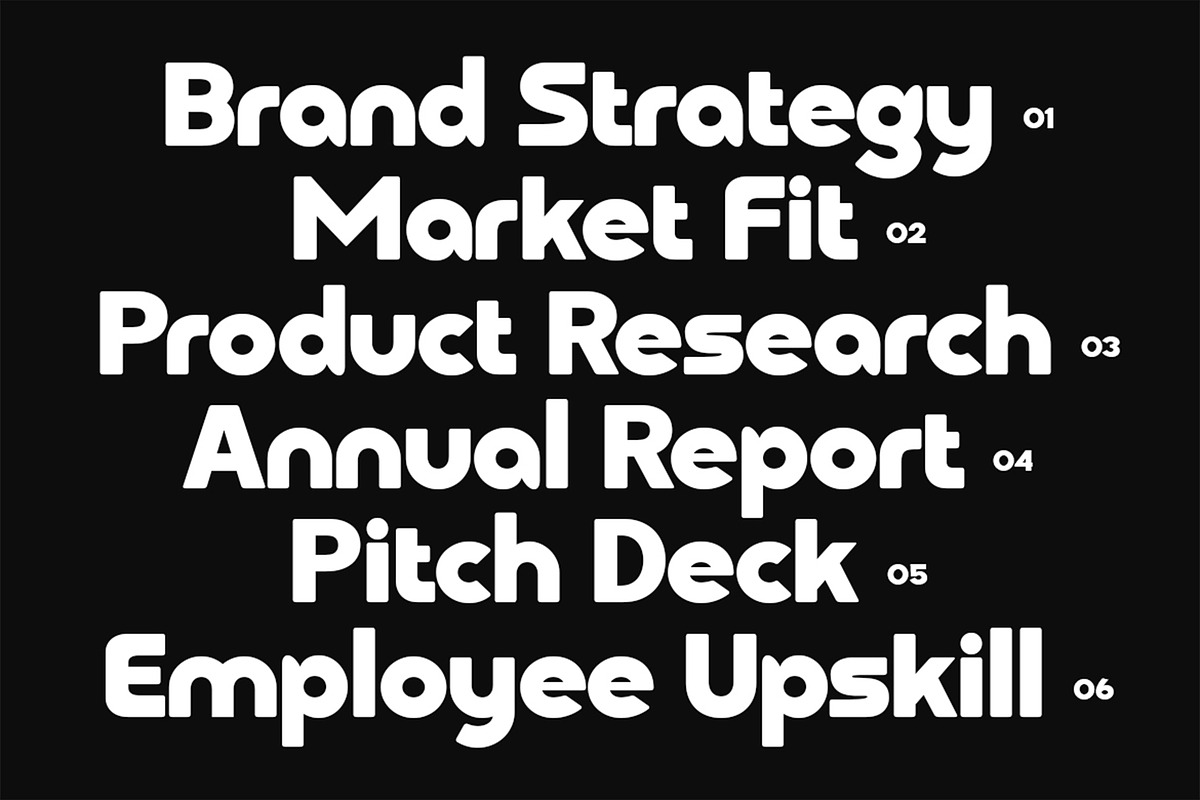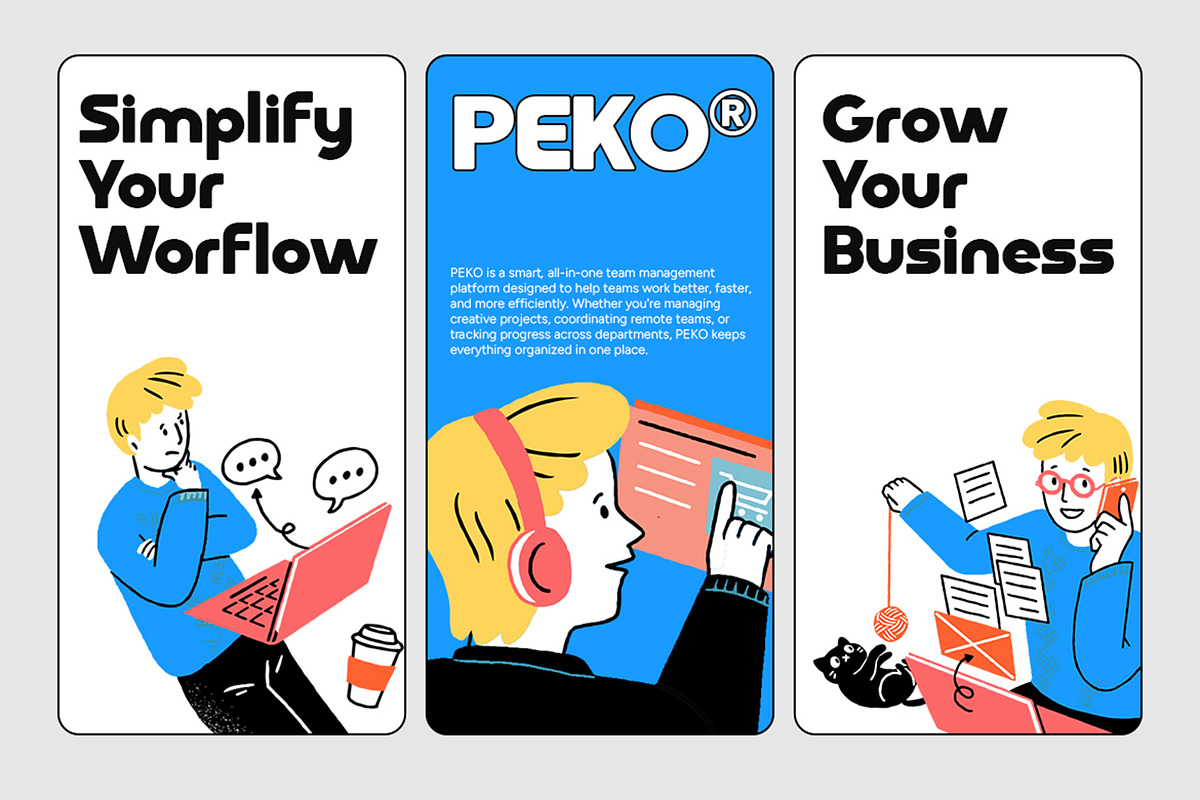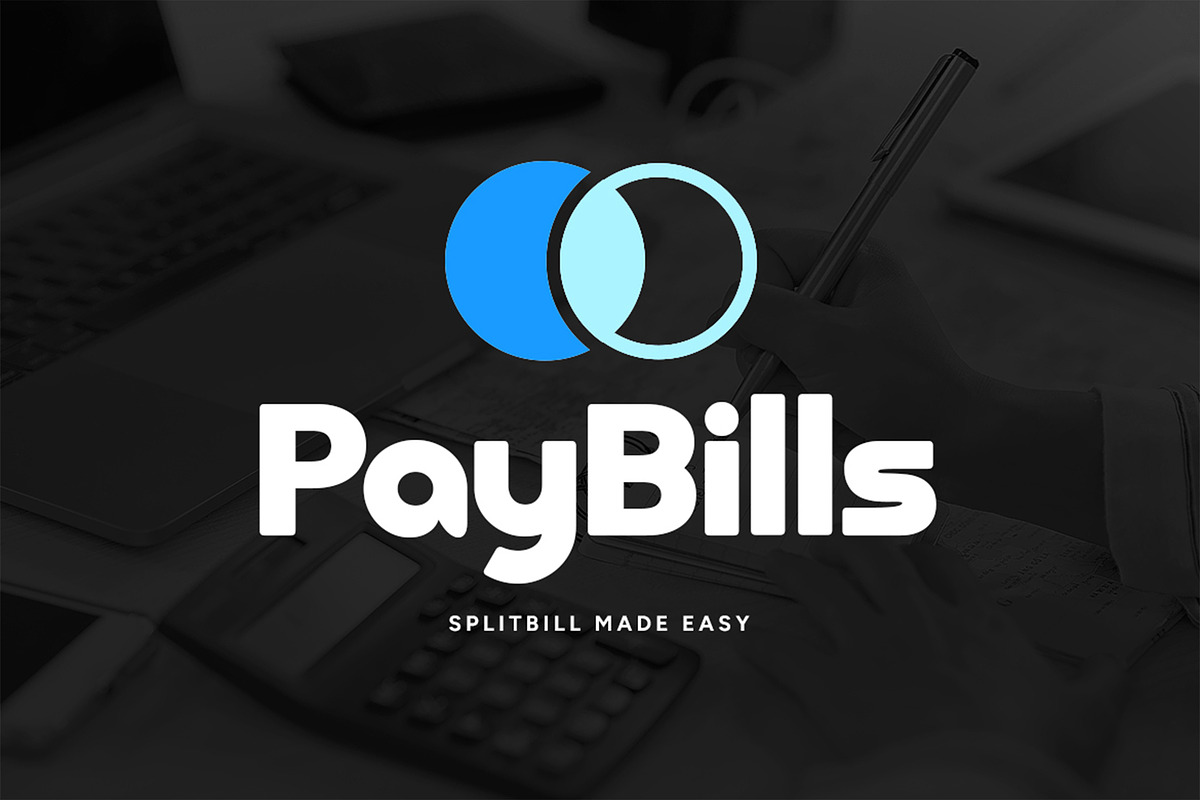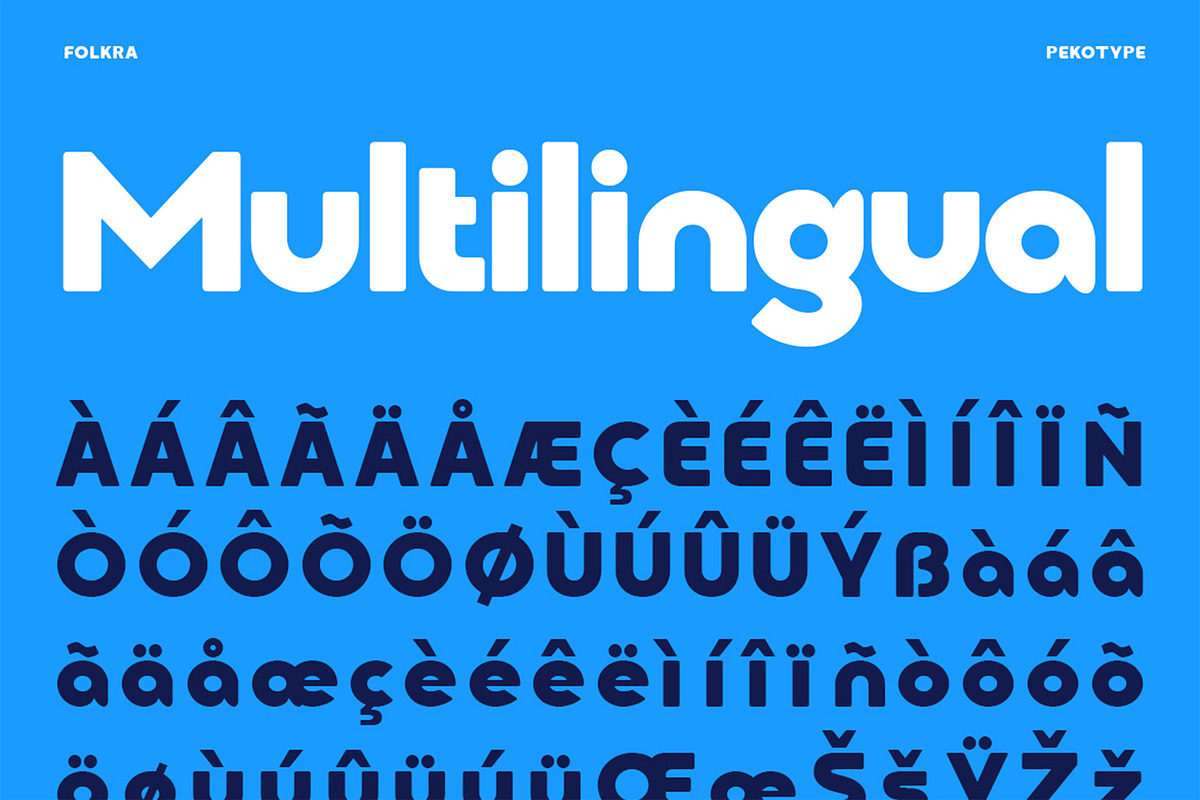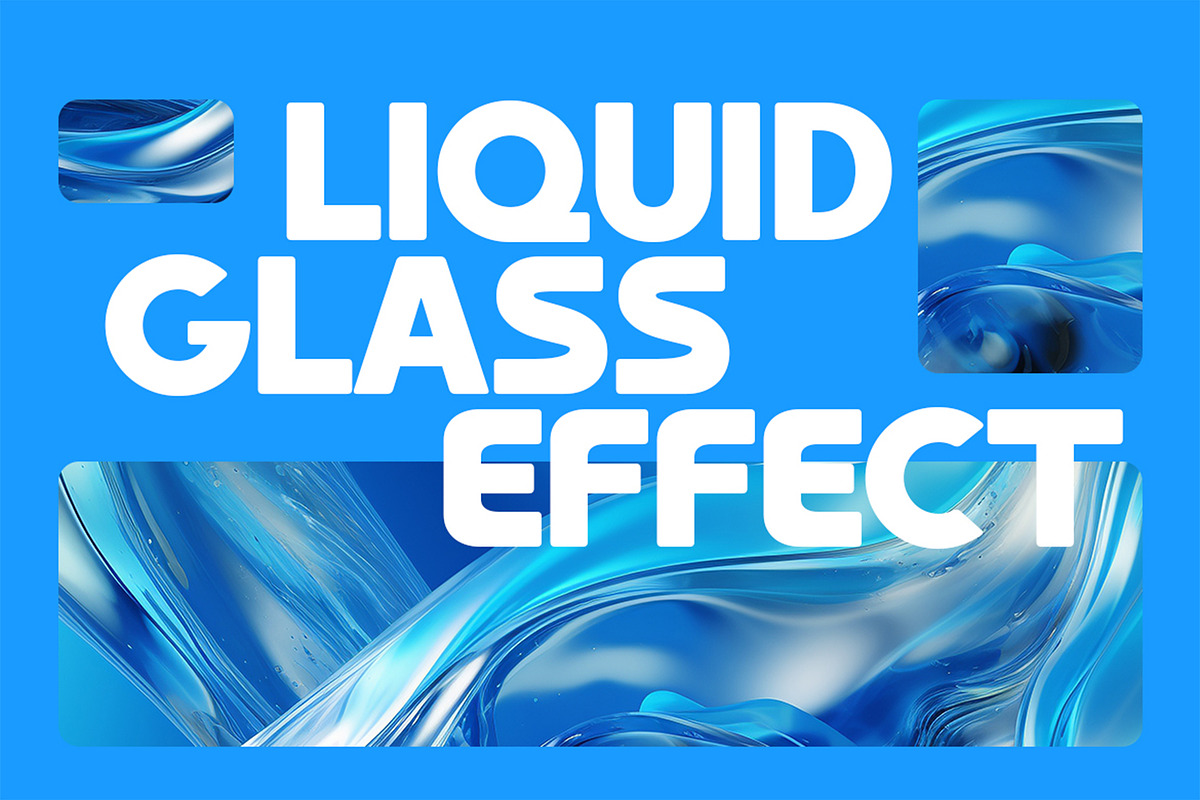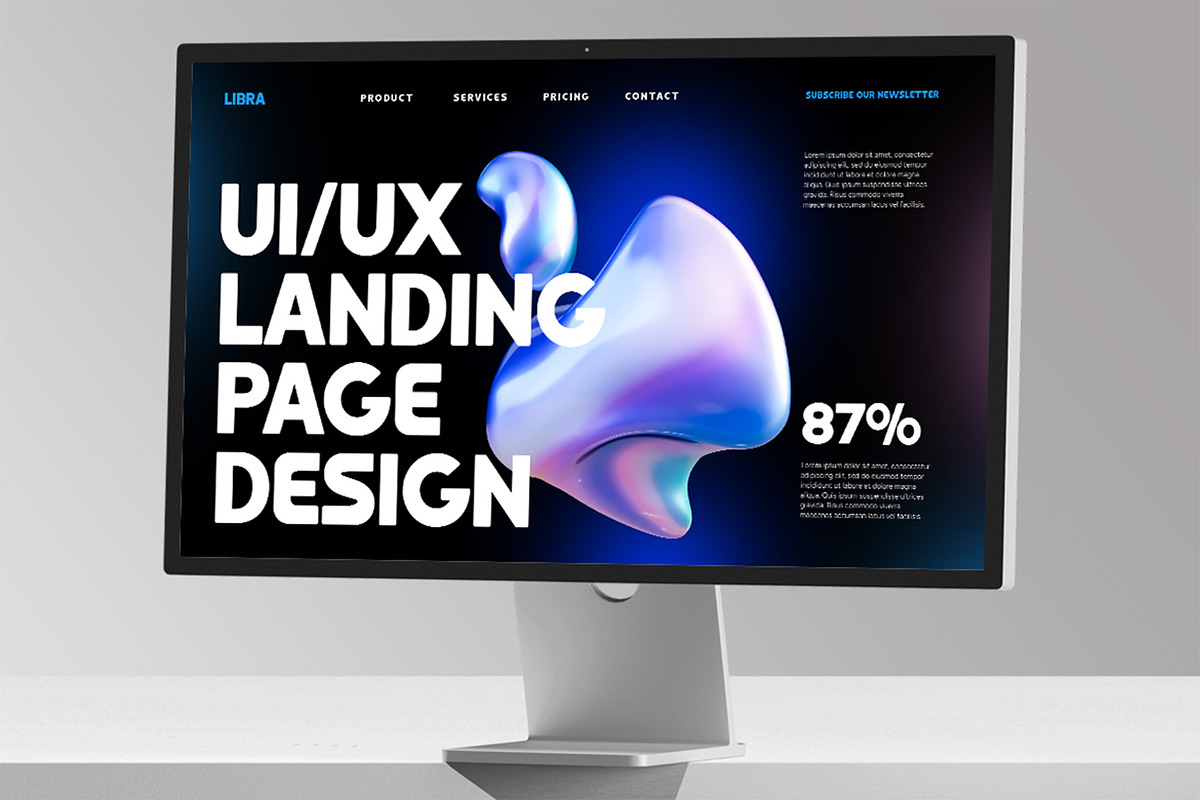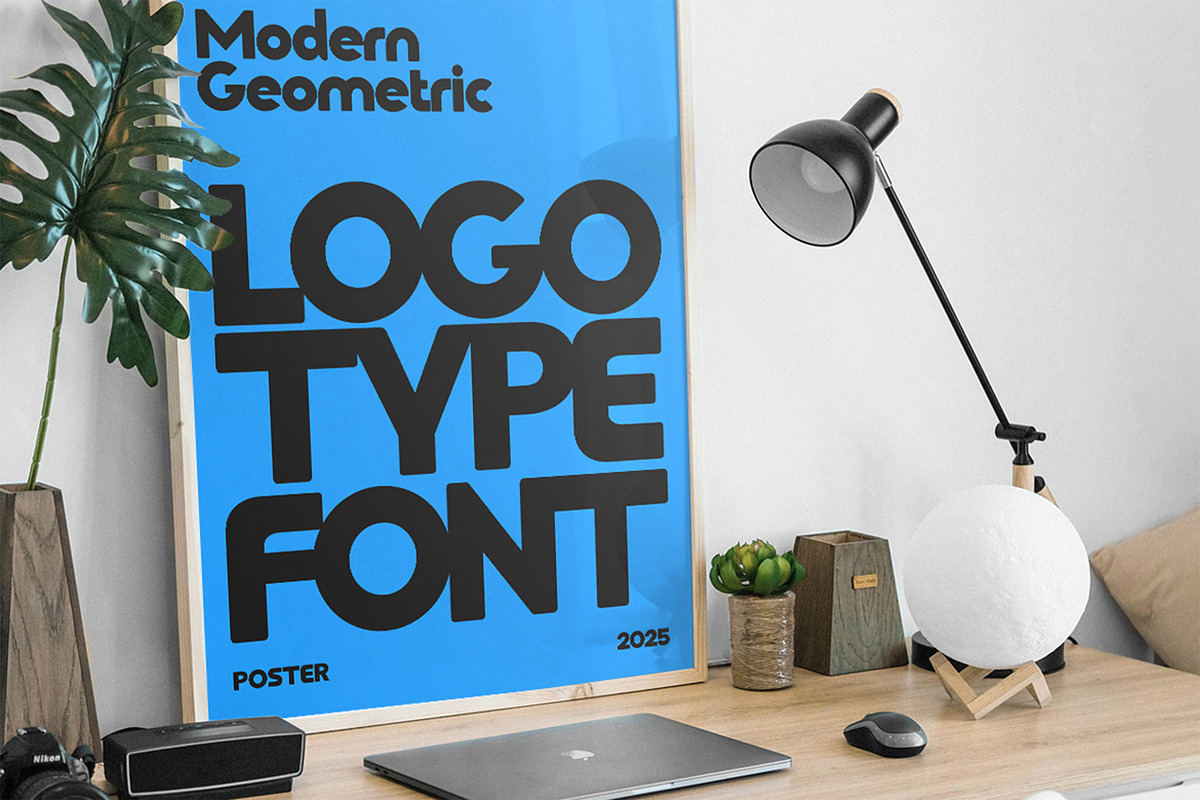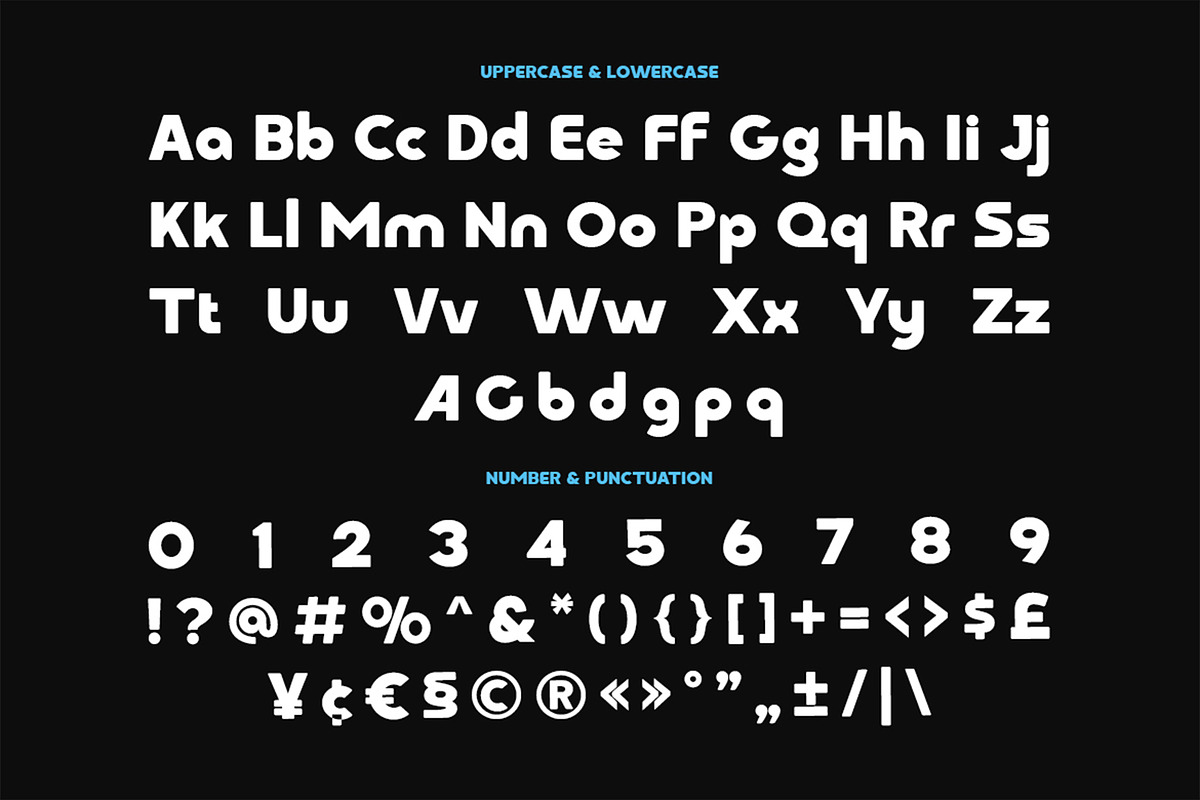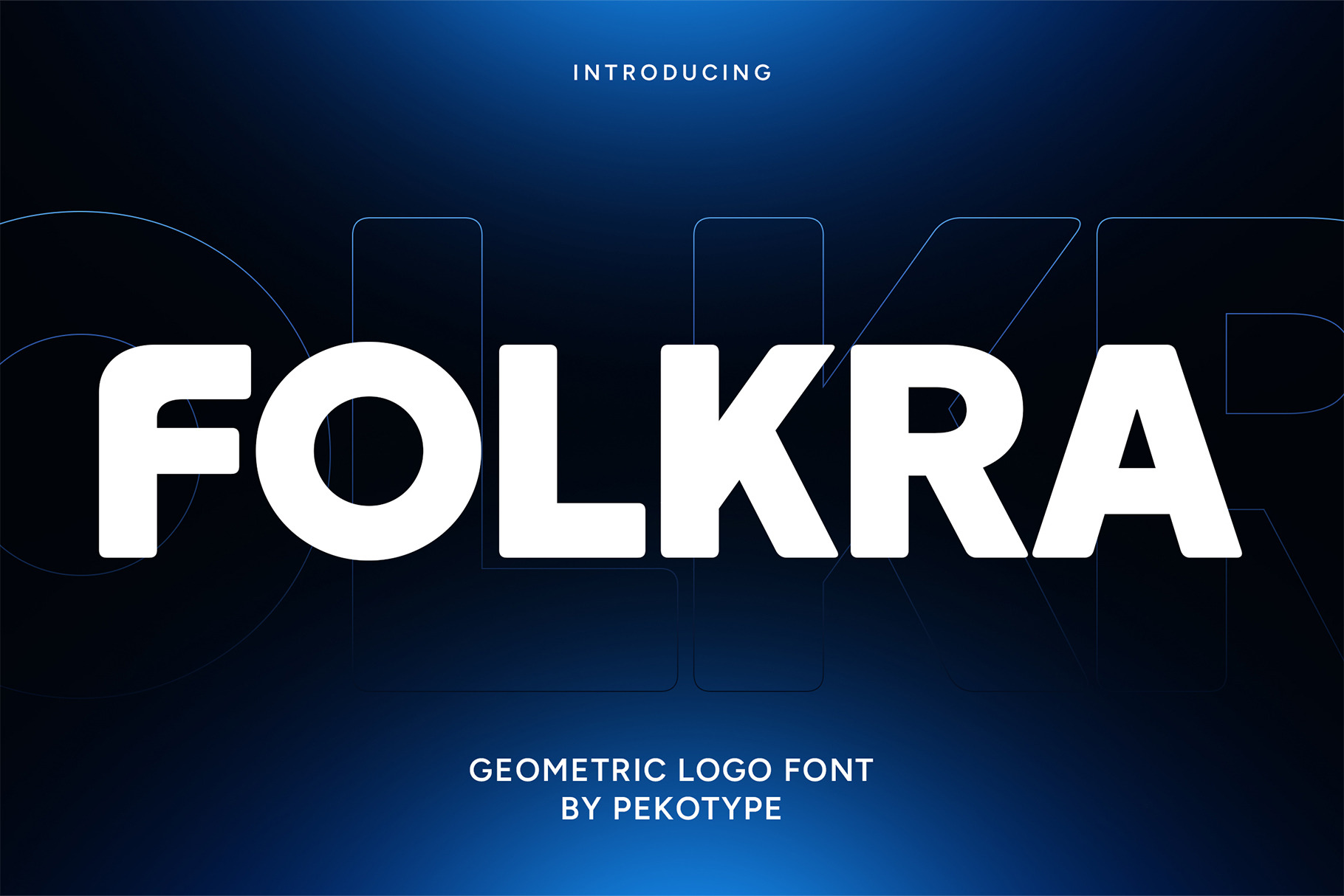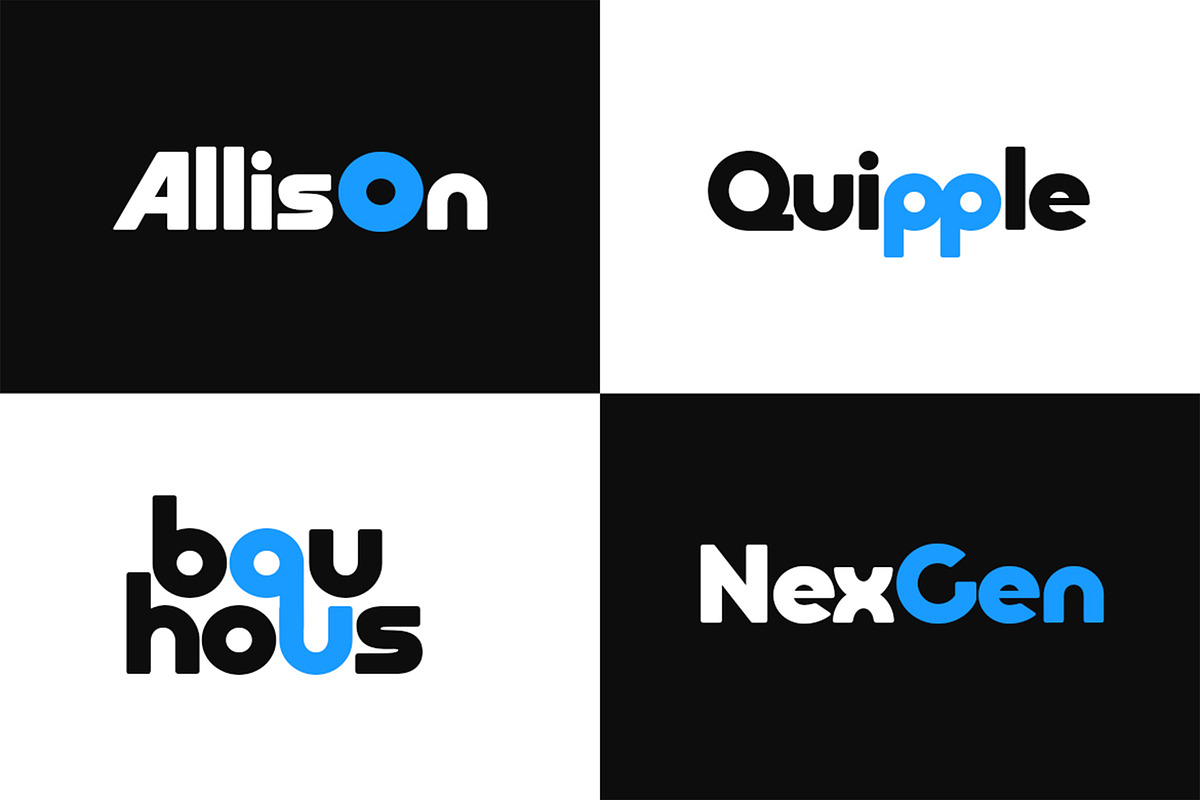
Folkra - Geometric Logo Font
FOLKRA – Modern Geometric Logo Font with Rounded Elegance
Introducing FOLKRA, a clean and modern geometric logo font designed to elevate your branding game. With its precise structure, rounded corners, and minimalistic aesthetic, FOLKRA is perfect for designers and brands looking to make a bold yet sophisticated visual statement.
Crafted with a balance of form and function, FOLKRA is ideal for logos, corporate identity, billboard designs, signage, packaging, and social media graphics. Its versatile nature allows it to adapt seamlessly across digital and print platforms, making it your go-to choice for professional and high-impact typography.
Whether you're building a tech brand, launching a startup, or redesigning a modern product label, FOLKRA’s geometric harmony and clean lines will give your project the edge it deserves.
- Number, symbol, & punctuation
- Modern geometric font with rounded corner